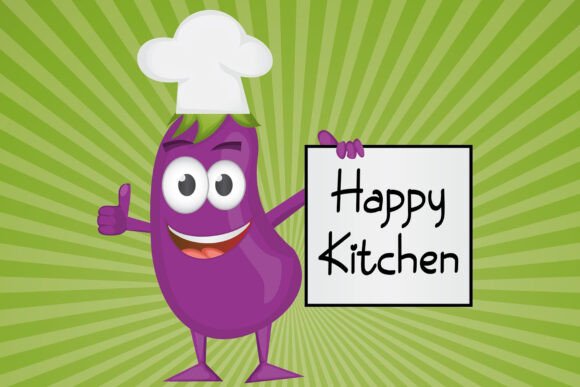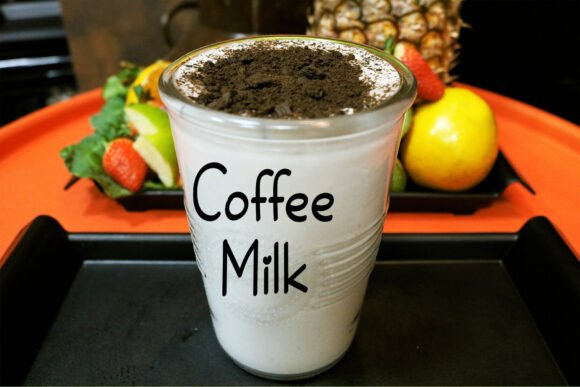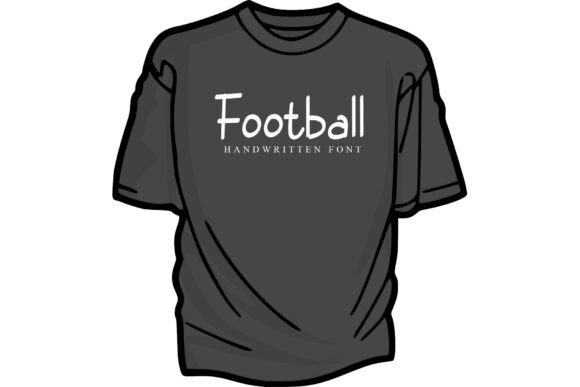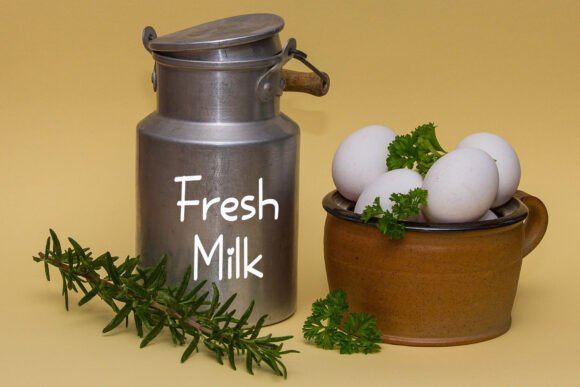
Introduction to Master Halbrel Font
Master Halbrel is a unique and elegant font specially designed just for you.
This font is made with a professional hand touch and is perfect for your projects This font is very suitable for use in your work projects, all greeting cards from wedding invitation cards, birthdays, all types of parties.
Key Features of Master Halbrel Font
Why Choose Master Halbrel Font?
Master Halbrel Font offers exceptional quality and versatility, making it a valuable addition to your design toolkit. Whether you’re creating for personal projects or commercial use, Master Halbrel Font delivers professional results.